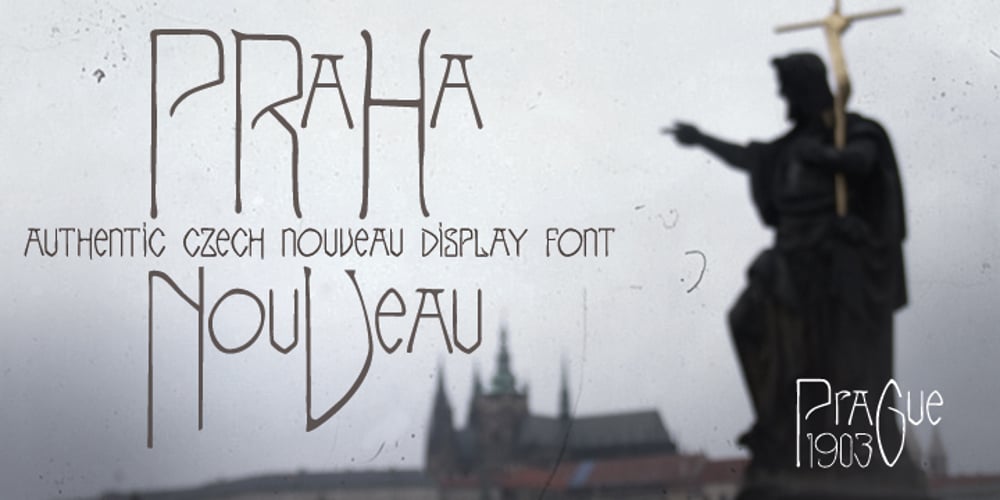
Praha Nouveau Font Family was designed by Matt Frost and published by Matt Frost. Praha Nouveau contains 1 styles and family package options. I found this type specimen on the statue of Jan Hus in Prague’s Old Town Square. The statue was designed in 1903 by Ladislav Saloun, and its writing is the cutest Nouveau font I’ve ever seen. Filling in the blanks, I realized the need for a standard lower case because the caps are so wild. The result is a very type-able and dynamic Nouveau. I encourage you to mix up your upper and lower cases for curious results. Use the lower case for running type. Go to http://facebook.com/frostfoundry to share this and see more!